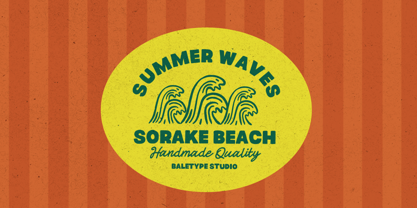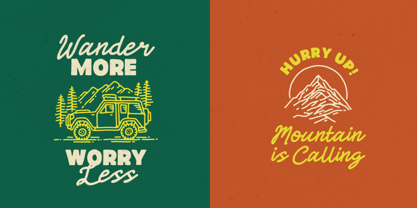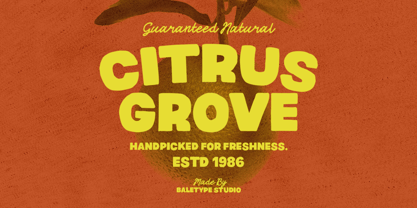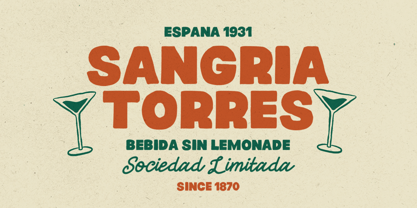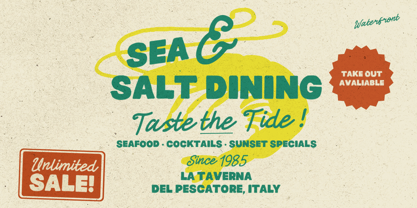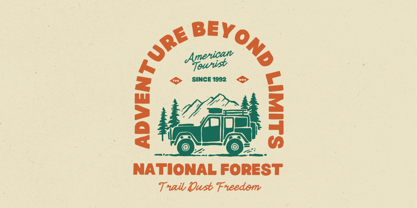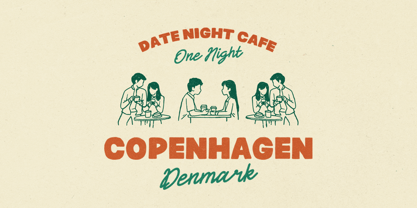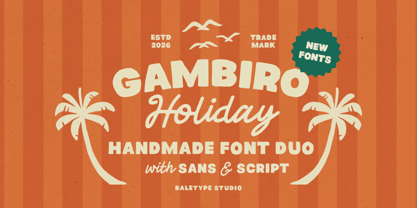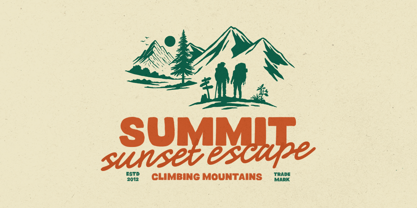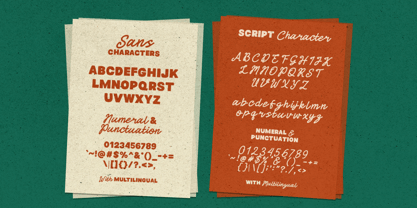
Gambiro Holiday
by Bale Type
Gambiro Holiday is a handwritten font duo inspired by sunny days, ocean breezes, and unforgettable summer adventures. Featuring a bold sans serif paired with a flowing monoline script, this versatile combination brings warmth, fun, and a laid-back holiday feeling to every design. Perfect for beach branding, travel journals, packaging, logos, quotes, invitations, social media graphics, and any project that calls for a handmade summer touch, Gambiro Holiday helps your creations feel fresh, relaxed, and full of personality. With multilingual support included, this font duo is ready to accompany your creative journey wherever summer takes you.
Designers: Albin Pawaz
Foundry: Bale Type